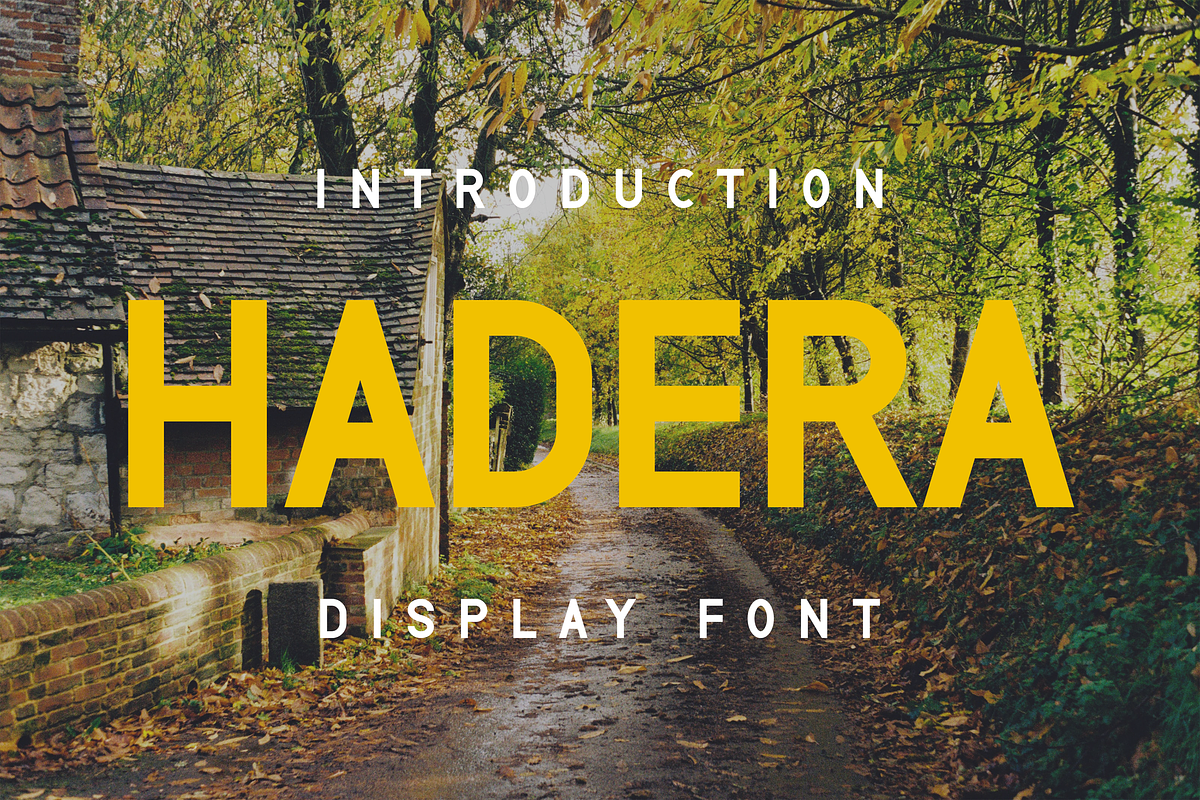
Hadera Font Free Download is a bold and modern typeface that blends clean geometry with contemporary flair. Designed to make a strong visual impact, Hadera is perfect for headlines, posters, logos, and editorial design. Its sharp edges and confident letterforms give your projects a professional and striking appearance.
Whether you're designing for print or digital media, Hadera Font delivers high readability and a unique personality. It's especially great for projects that need to communicate strength, style, and clarity. Hadera Font Free Download lets you explore its full potential without commitment, giving you the flexibility to test it in your creative workflow before purchasing a commercial license.